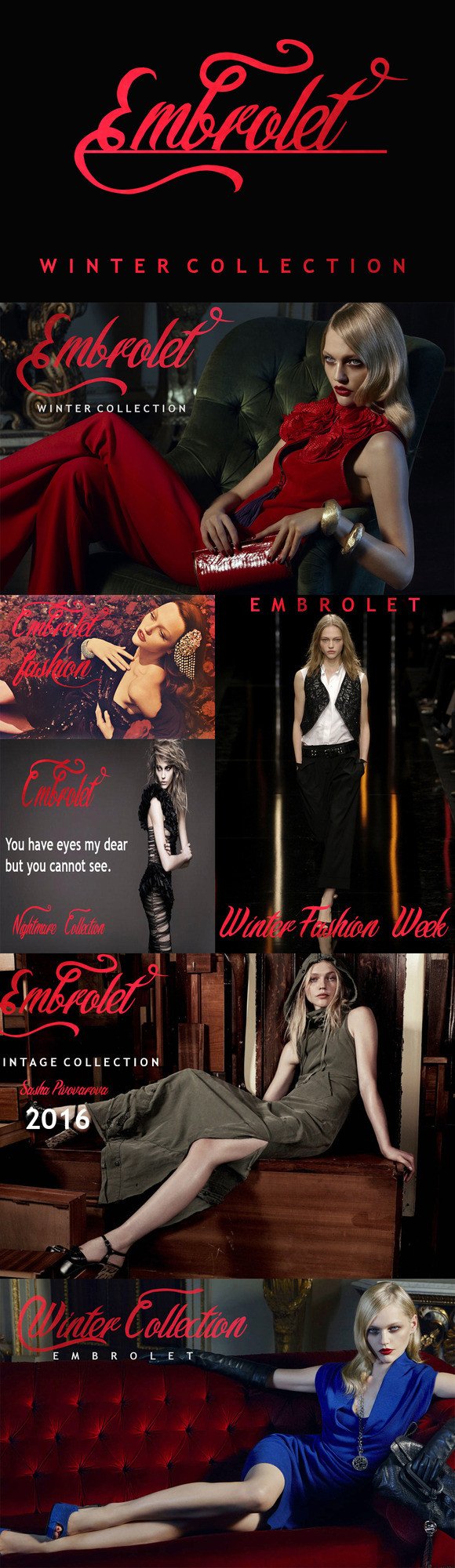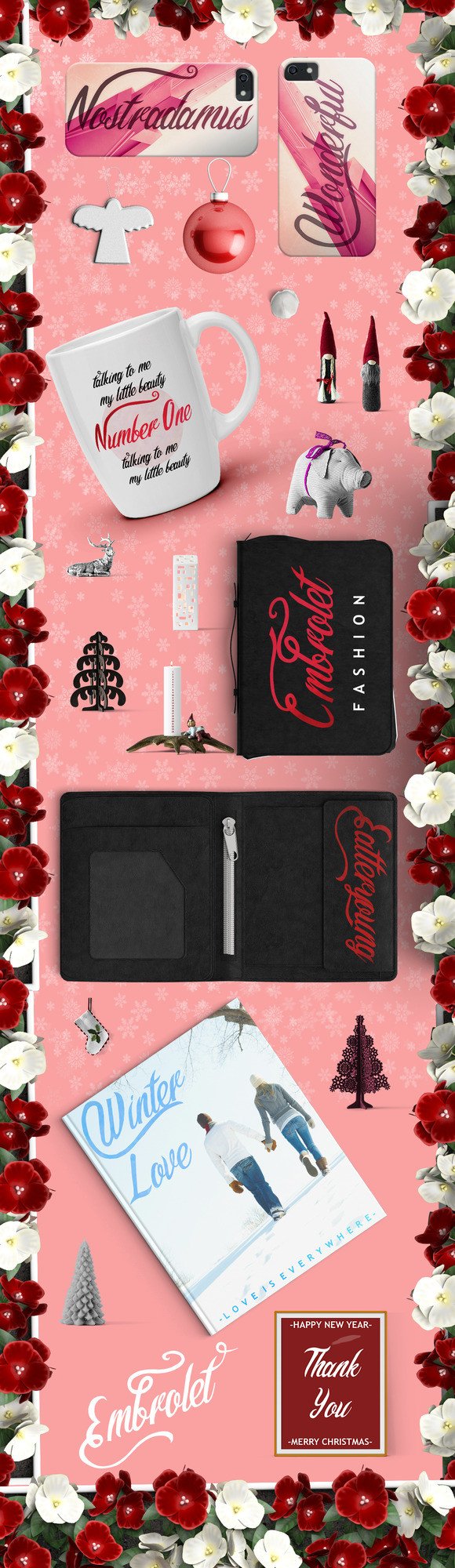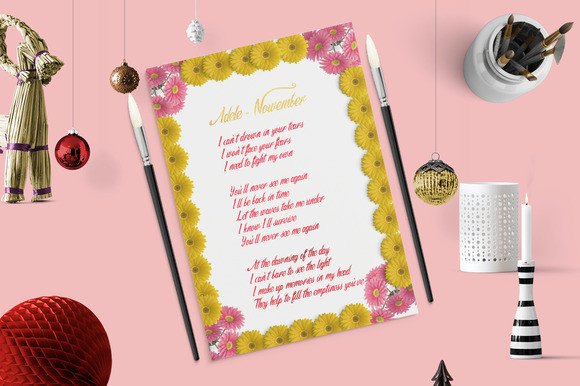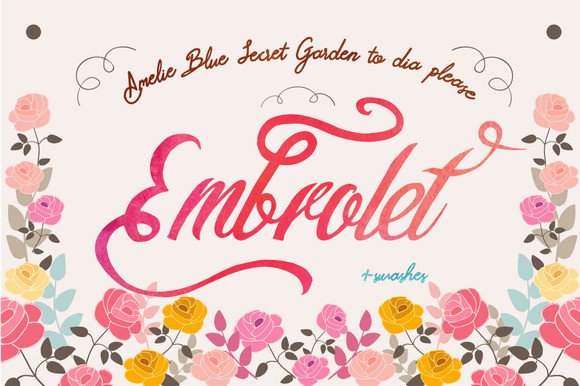
Embrolet Font
About Embrolet Font
Embrolet is a elegant typeface and can be used for various purposes such as: posters, t-shirts, letterheads, logo’s, labels, invitations, cards and much more